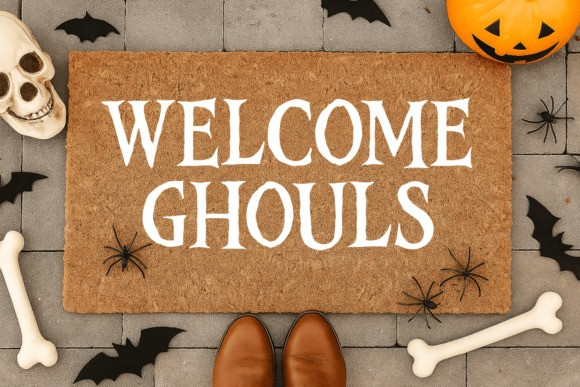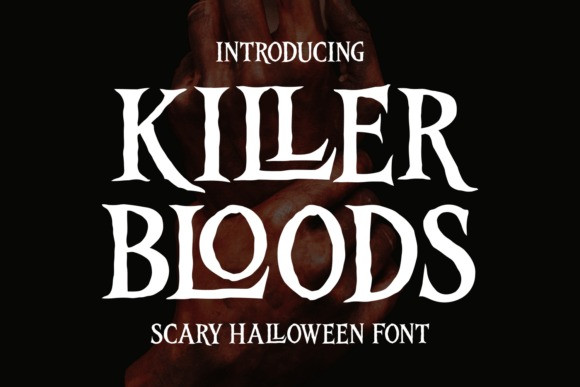
Killer Bloods Font
Killer Bloods Font is a hauntingly crafted display font that brings spine-chilling horror and dark elegance into every design. Inspired by eerie shapes, dripping blood, and twisted gothic vibes, this typeface is designed to send shivers down your spine while keeping a sense of artistic beauty. Its sharp curves, uneven edges, and raw, hand-drawn style make it the perfect choice for any project that demands a sinister yet stylish touch.
Whether you’re designing for the spooky season or crafting something that needs a dark and dramatic atmosphere, KillerBloods font is your ultimate weapon. Imagine bold Halloween posters, horror movie titles, eerie book covers, haunted house flyers, or even unique merchandise designs—this font instantly transforms them into eye-catching visuals filled with mystery and suspense.
Killer Bloods font is a storytelling tool that captures the essence of fear and fascination. From haunted invitations to gothic branding, it’s guaranteed to make your audience stop, stare, and feel the thrill of the unknown.
Bring your darkest ideas to life with Killer Bloods typeface, the scary Halloween font that bleeds with creativity and horror.